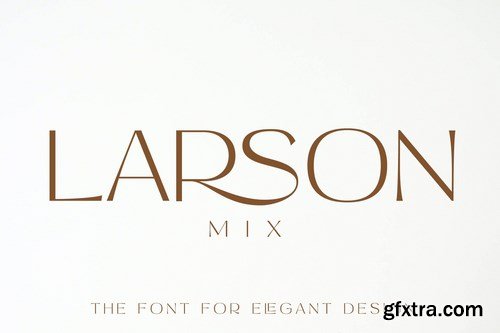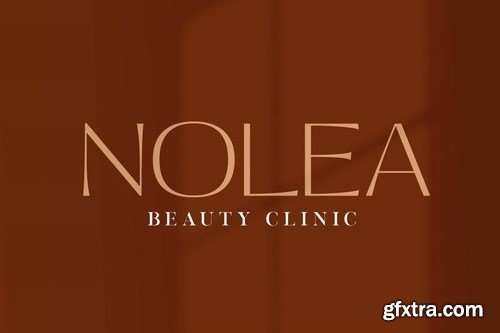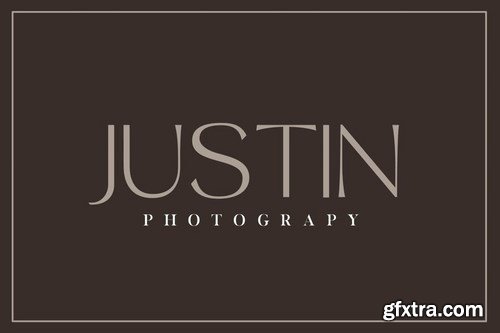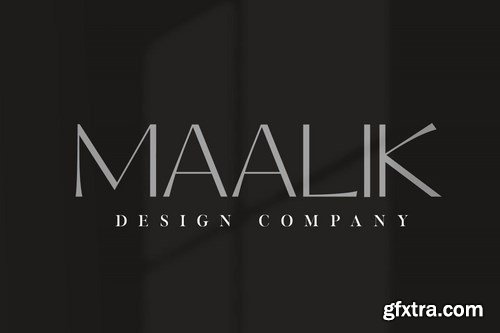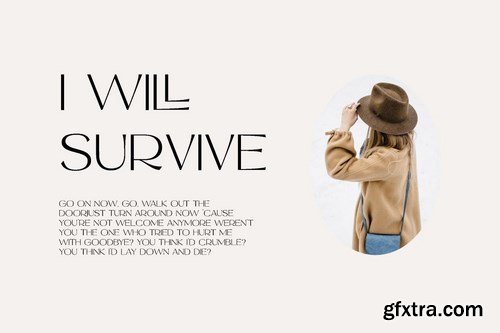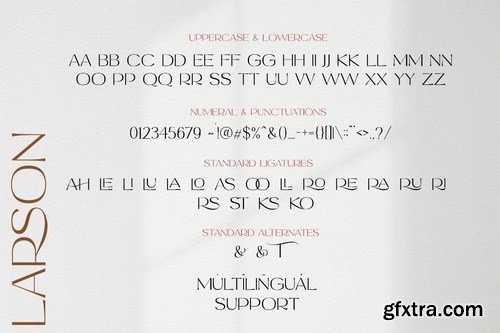
Larson Mix is simple and elegant advertisement font. It can easily be matched to an incredibly large set of projects like logo, package, advertisement, magazine, , so add it to your creative ideas and notice how it makes them stand out!